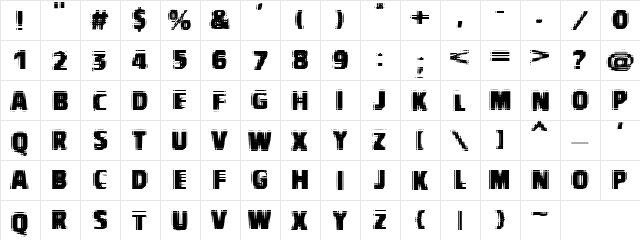
VTCBadVision Regular
Design Context for VTCBadVision Typeface
VTCBadVision is a composed and adaptable typeface that performs quietly and consistently across a wide range of design contexts.